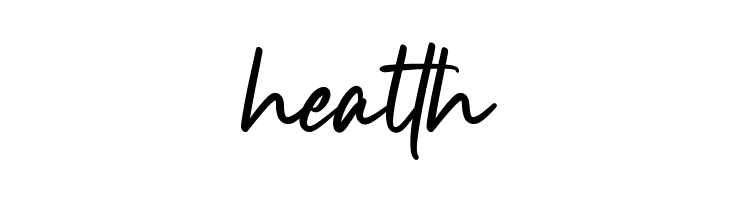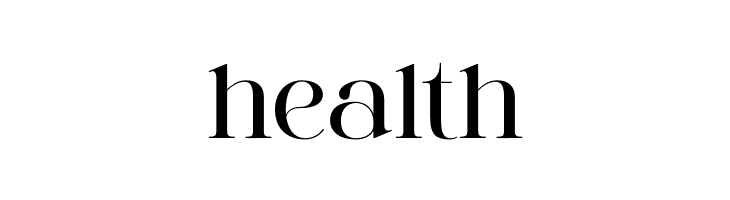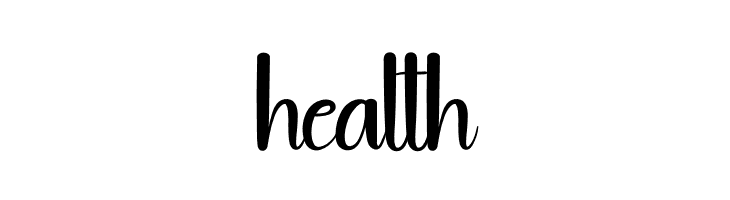
A dynamic and expressive handwritten font with fluid strokes and a casual elegance.
A refined serif font with high contrast and elegant serifs.
A playful, handwritten-style font with dynamic uppercase and bold lowercase letters.
A playful, whimsical font with flowing uppercase and bold lowercase characters.